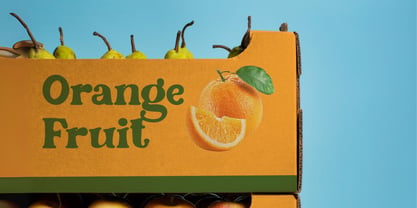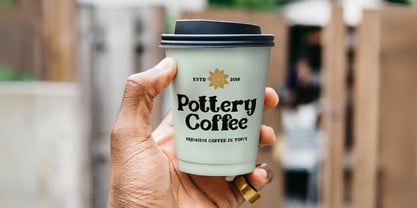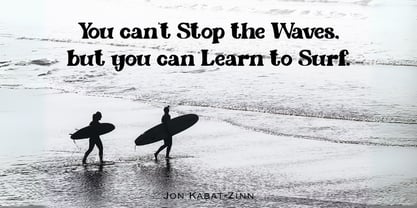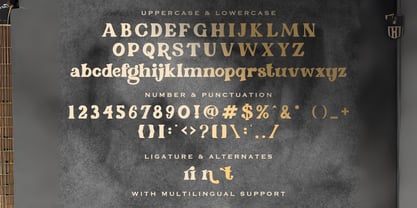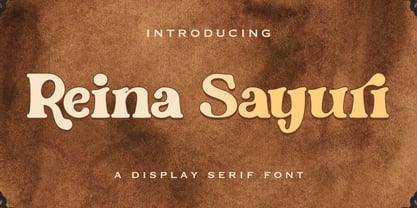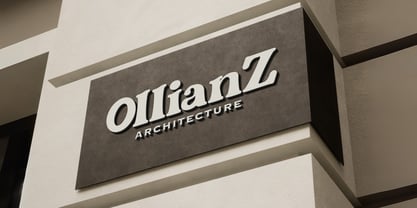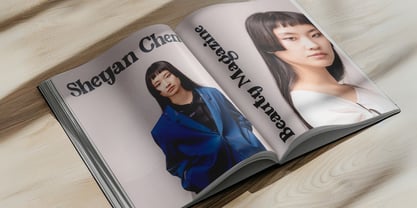
Reina Sayuri
A Modern Vintage font that we created especially for elegant branding needs, with a unique shape, will be ready to add value to your brand. It's great to collaborate with designers or product owners who need solutions to enhance the style and modernity of their designs.